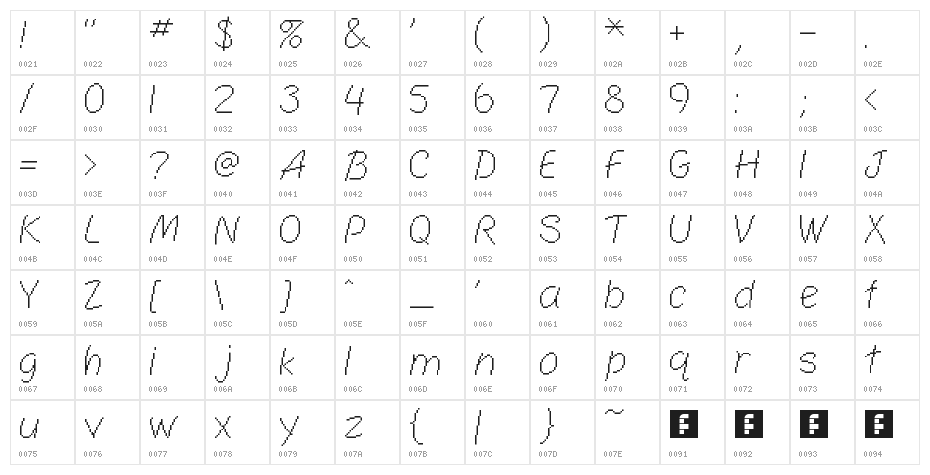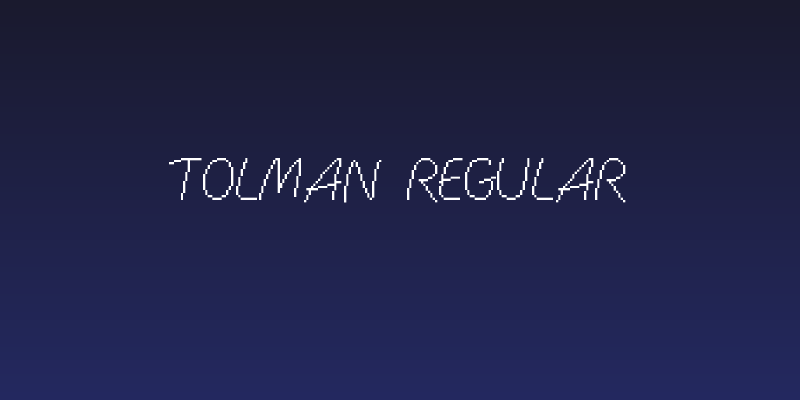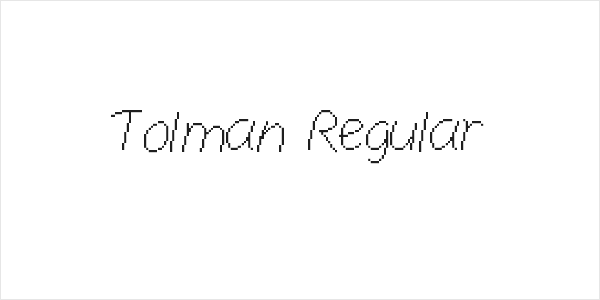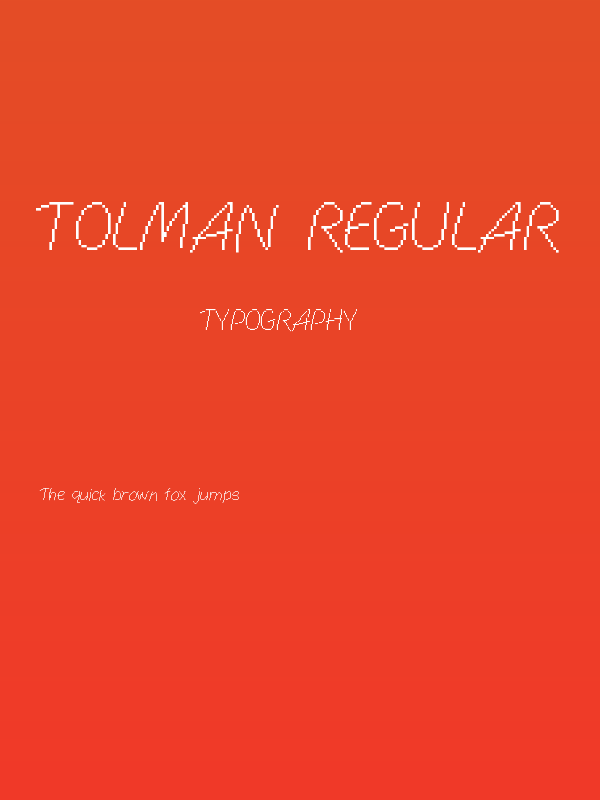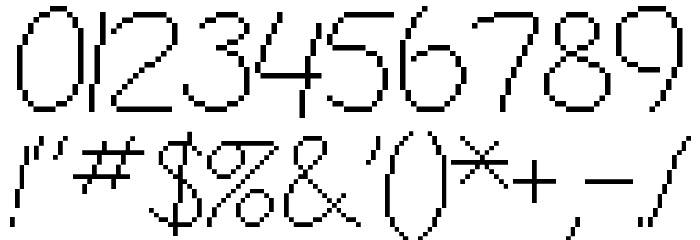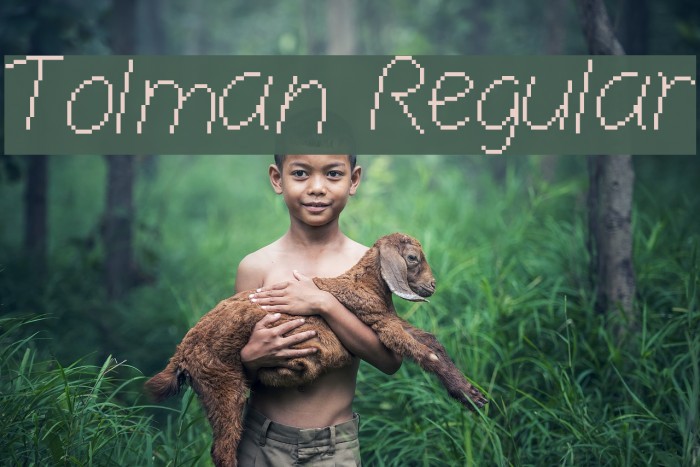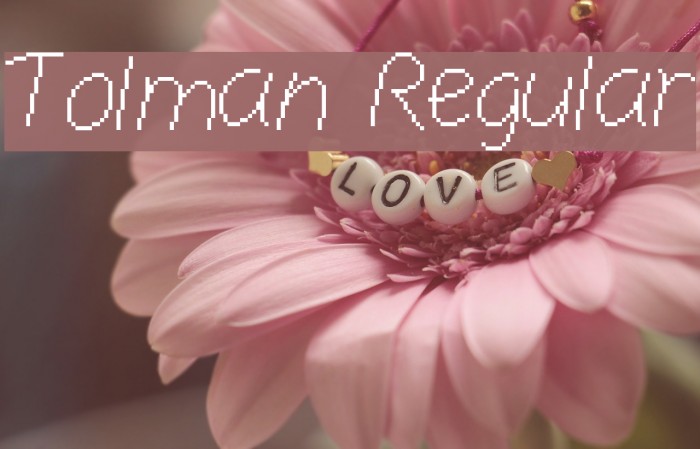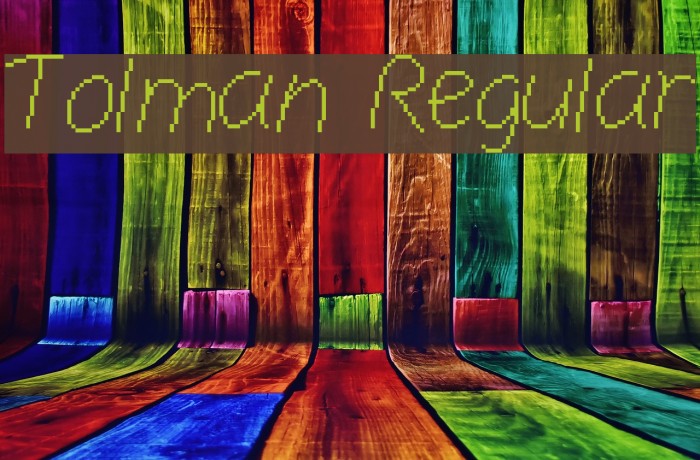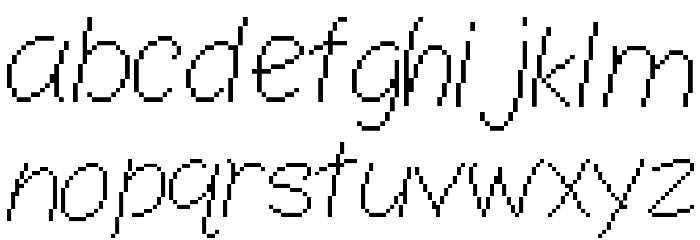
Tolman Regular Font
Tolman Regular Description
This font features a clean and modern design with a handwritten touch. The characters are slightly slanted, giving a sense of movement and fluidity. The strokes are consistent in width, providing a uniform appearance across all characters. The uppercase letters are tall and elegant, while the lowercase letters maintain a friendly and approachable style. The numerals are clear and easy to read, making them suitable for various applications. Special characters are well-defined, adding versatility to the font's use.